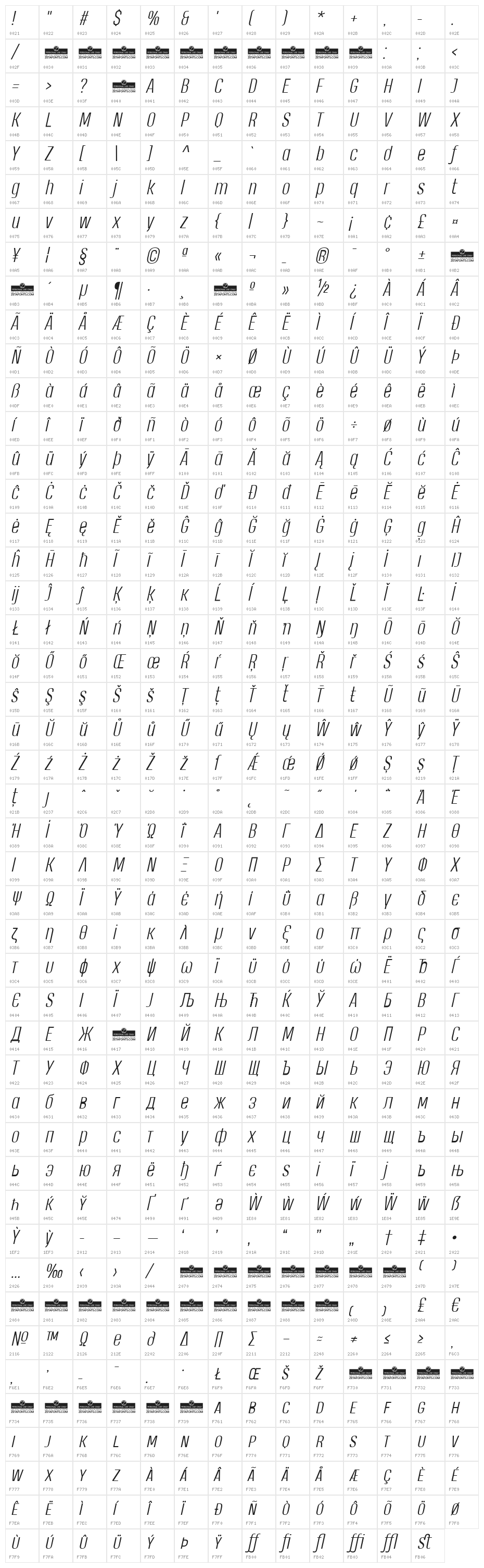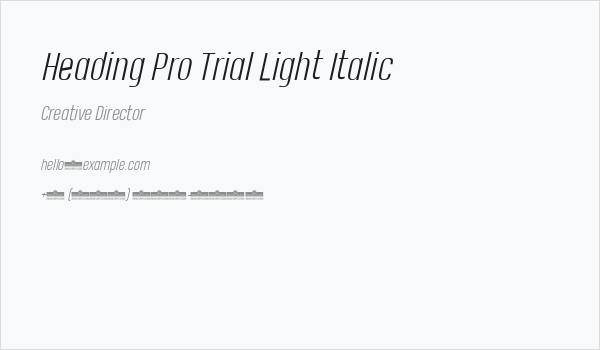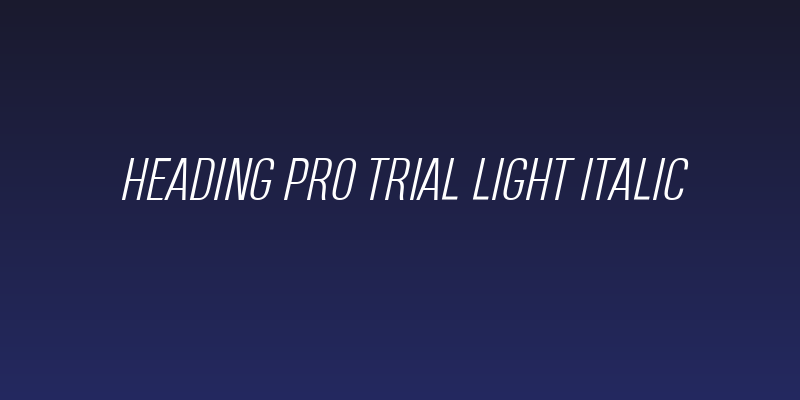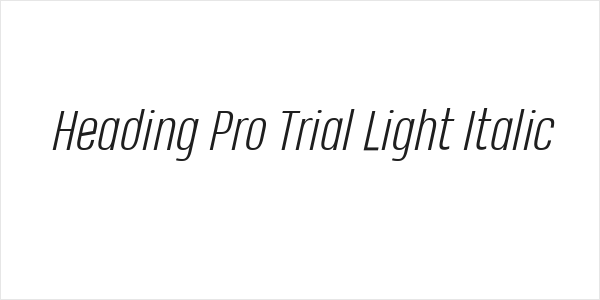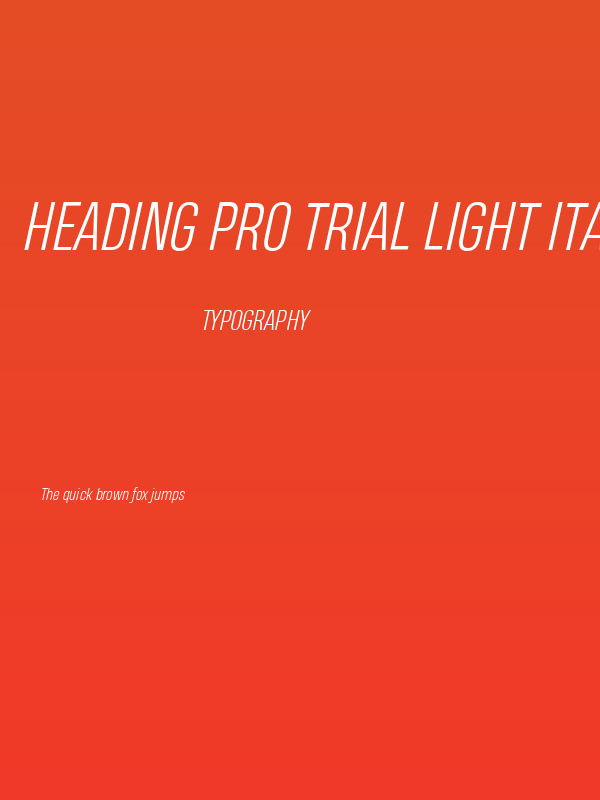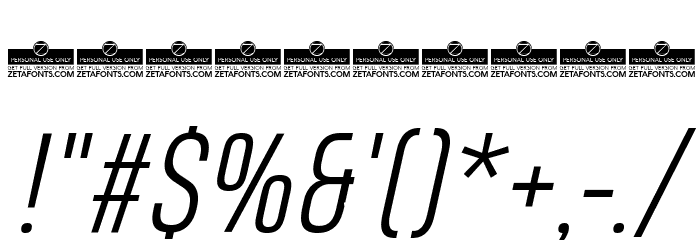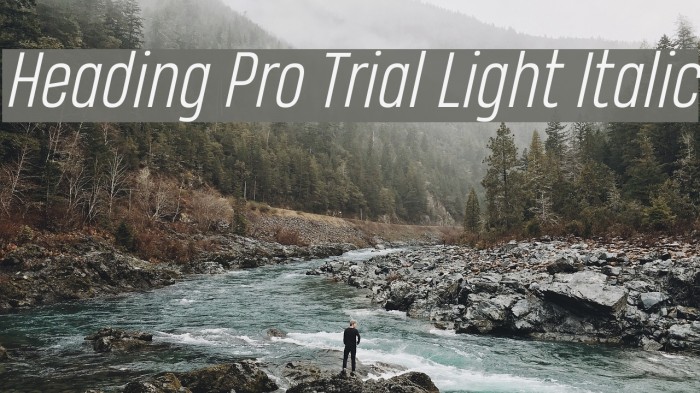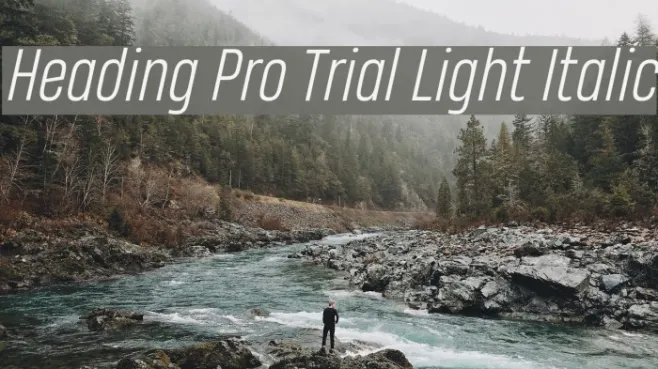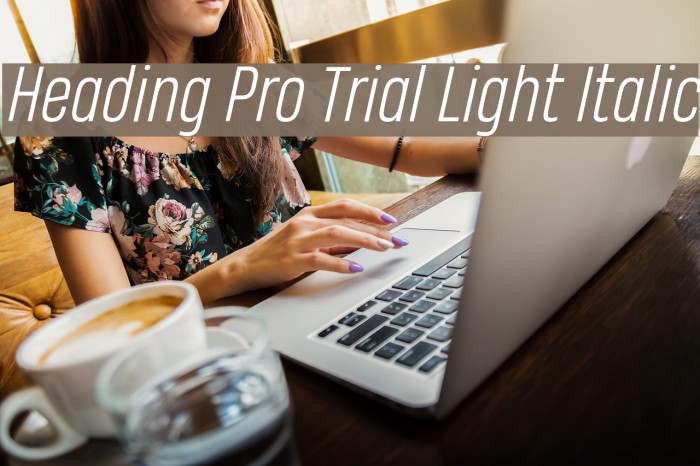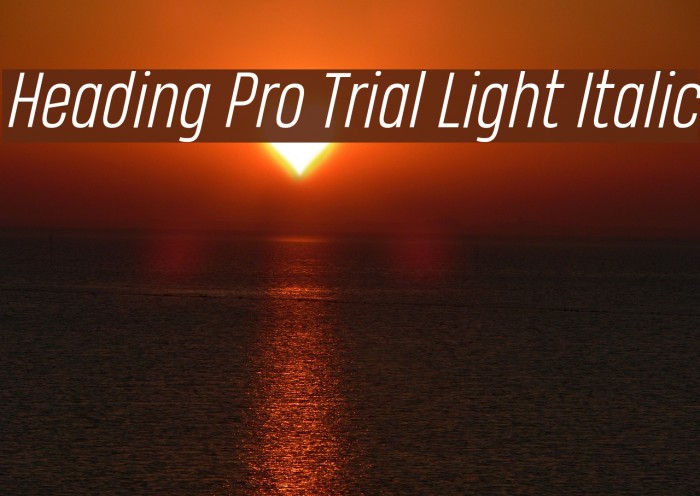
Heading Pro Trial Light Italic Font
Heading Pro Trial Light Italic Description
This font features a sleek and modern design with a light weight and italic style. The characters are elongated and slightly condensed, giving it a sophisticated and contemporary look. The uppercase and lowercase letters maintain a consistent slant, enhancing the italic effect. The numerals and special characters are designed with the same attention to detail, ensuring uniformity across all glyphs. The overall appearance is clean and professional, making it suitable for a variety of design applications.
| Width | Condensed |
| Use Case | Headlines, Body text, Logos |
| Proposed Projects | Ideal for modern branding, editorial design, and digital interfaces where a clean and professional look is desired. |